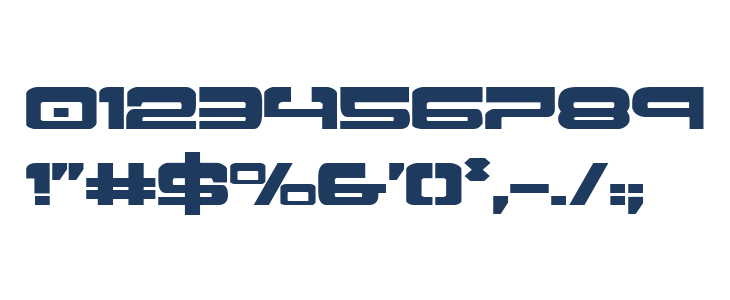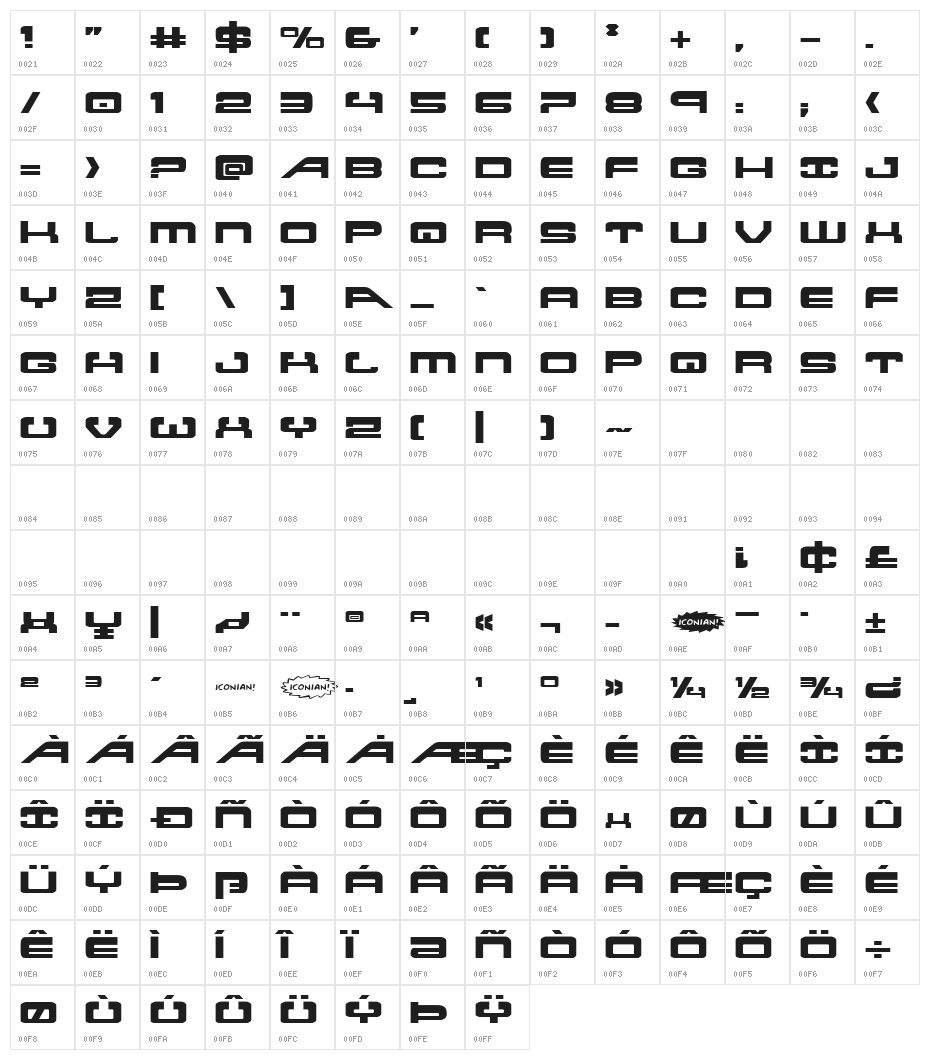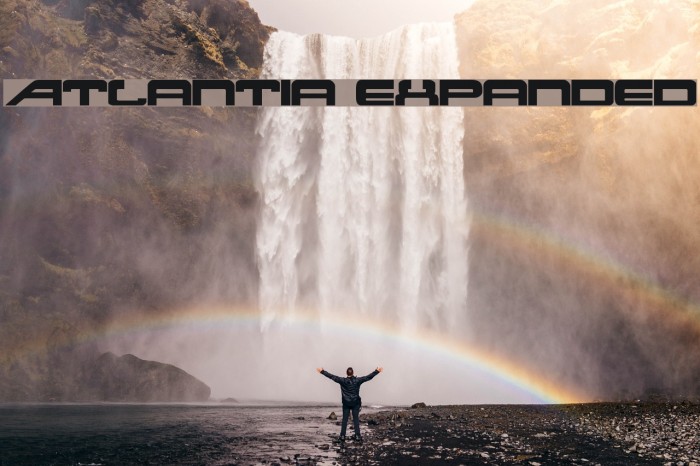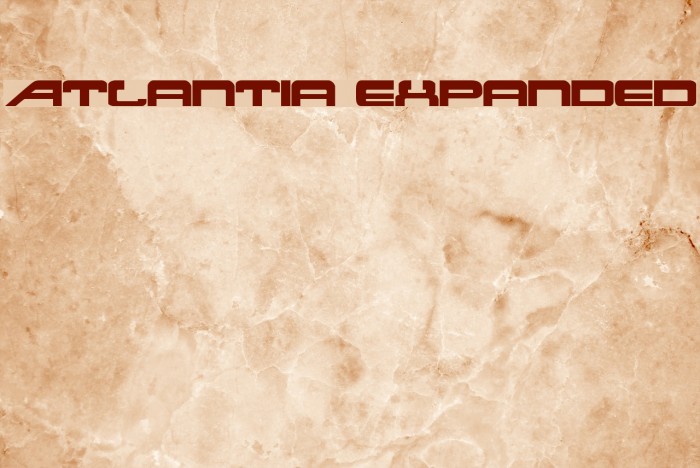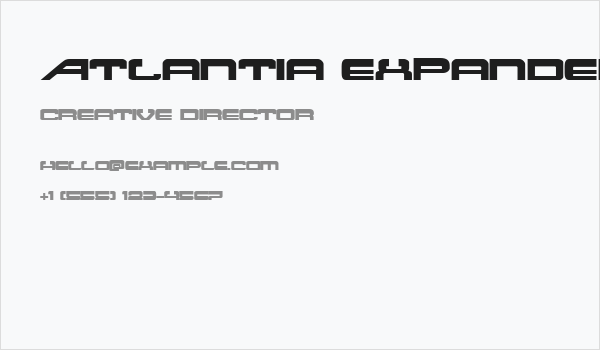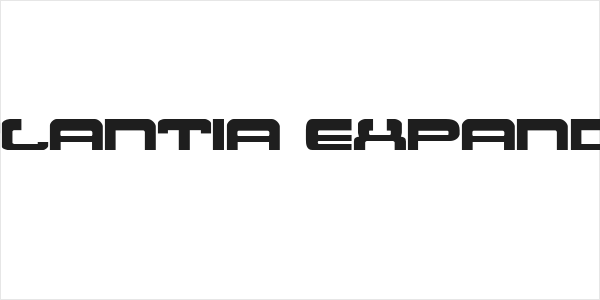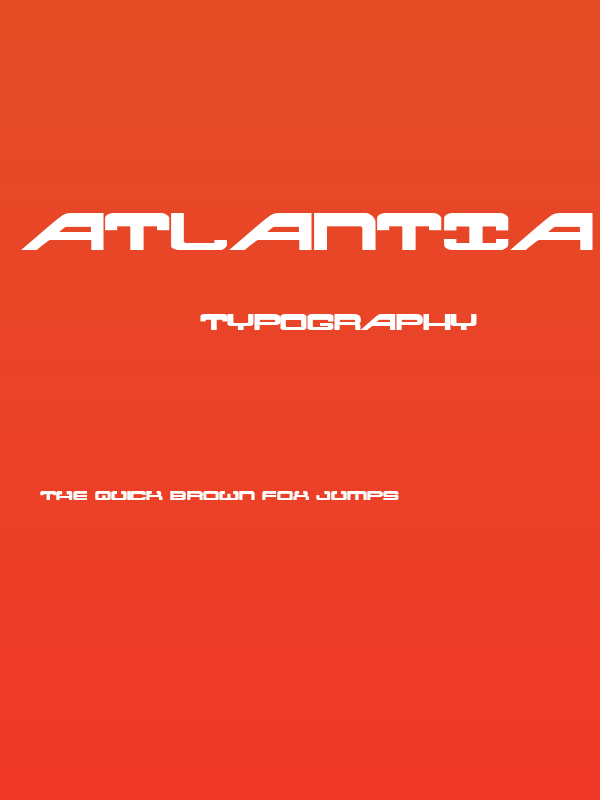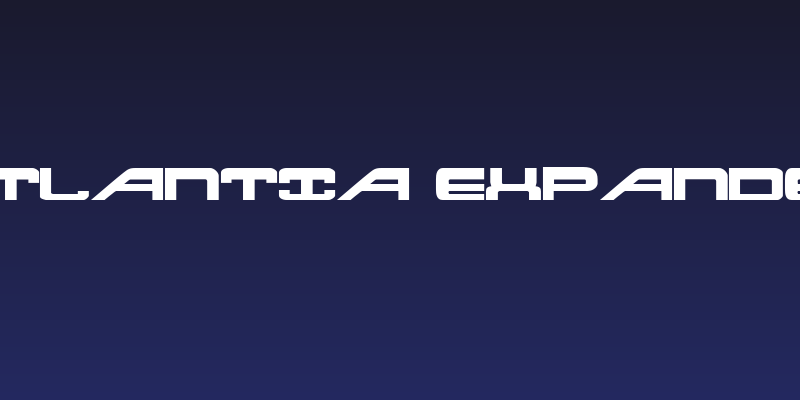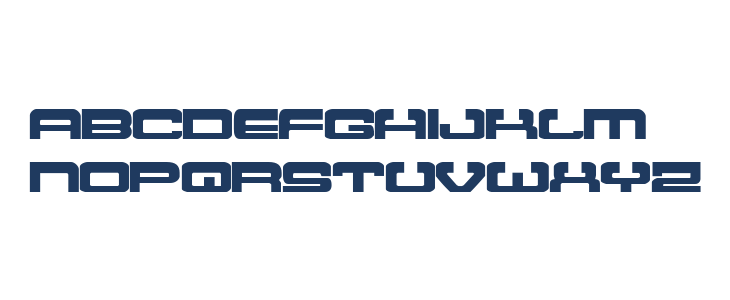
Atlantia Expanded Font
Atlantia Expanded Description
This font features a futuristic and geometric design with a distinct expanded width. The characters are bold and have a unique, angular style that gives them a modern and tech-inspired appearance. The uppercase letters are particularly striking, with sharp edges and a consistent height that creates a uniform look. The lowercase letters maintain the same stylistic elements, ensuring cohesion across different text cases. Numbers and special characters are designed with the same attention to detail, making them suitable for a variety of digital and print applications. The overall design is clean and impactful, ideal for making a strong visual statement.
| Proposed Projects | Ideal for technology branding, sci-fi themed projects, video game interfaces, and modern advertising campaigns. |